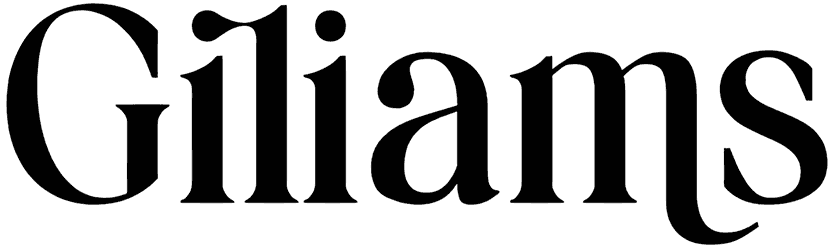
Giliams Font
We would strongly recommend you get back to the routes by utilizing a formal ligature font such as Giliams in your diplomas, presentations, important documents, invitations, or branding. This masterpiece is commonly known for its high legibility and for carrying a sense of confidence, trustworthiness, and respect. For access to a vast font collection, don’t hesitate to check out our growing archive.